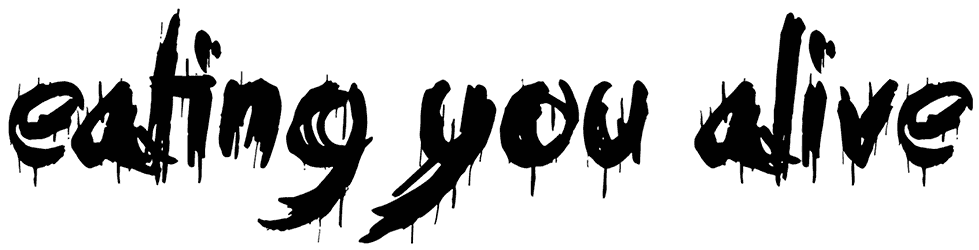
Eating You Alive Font
No matter how many new fonts are introduced to the world of graphics, still, dripping fonts have kept their special place in the category of horrors. Eating You Alive is a new generation of bloody fonts that don’t include capital letters and numbers.
The space created in the presence of this horror font is not so scary that you cannot use it in children’s projects. This font can look brilliant in all illustration projects for crime films, police stories, and computer games.